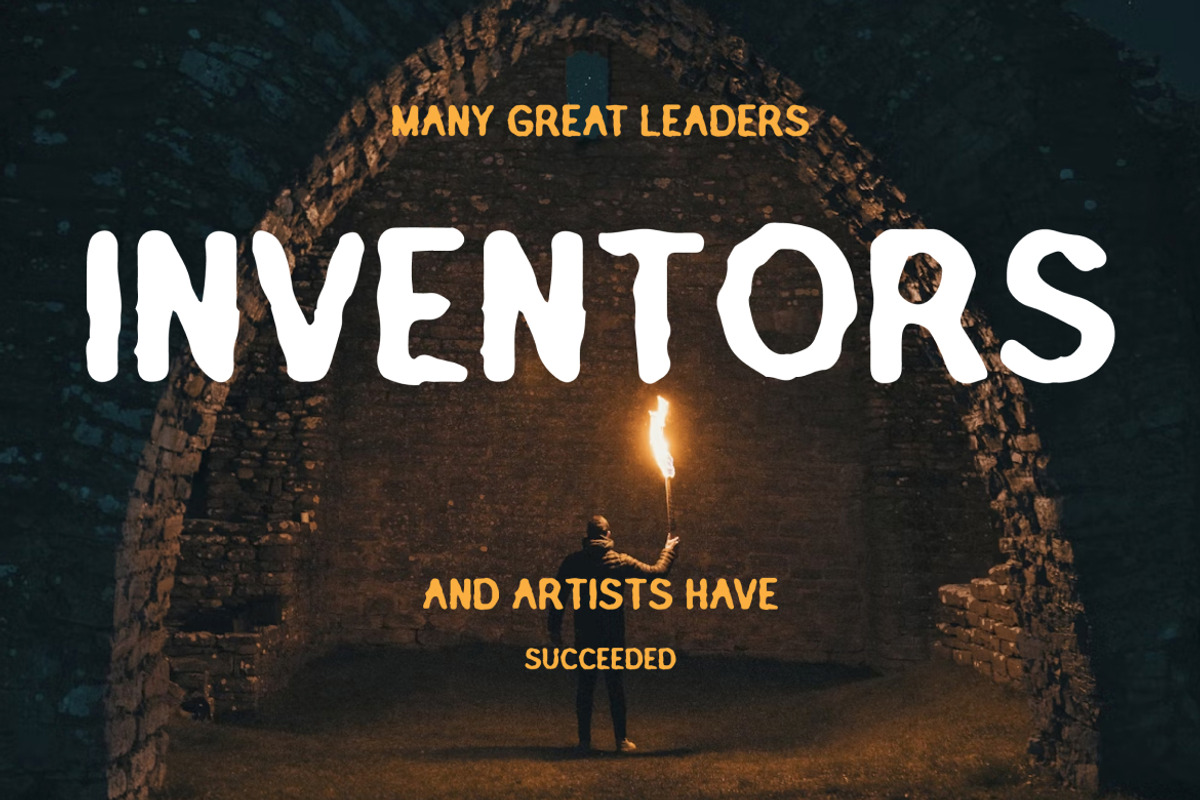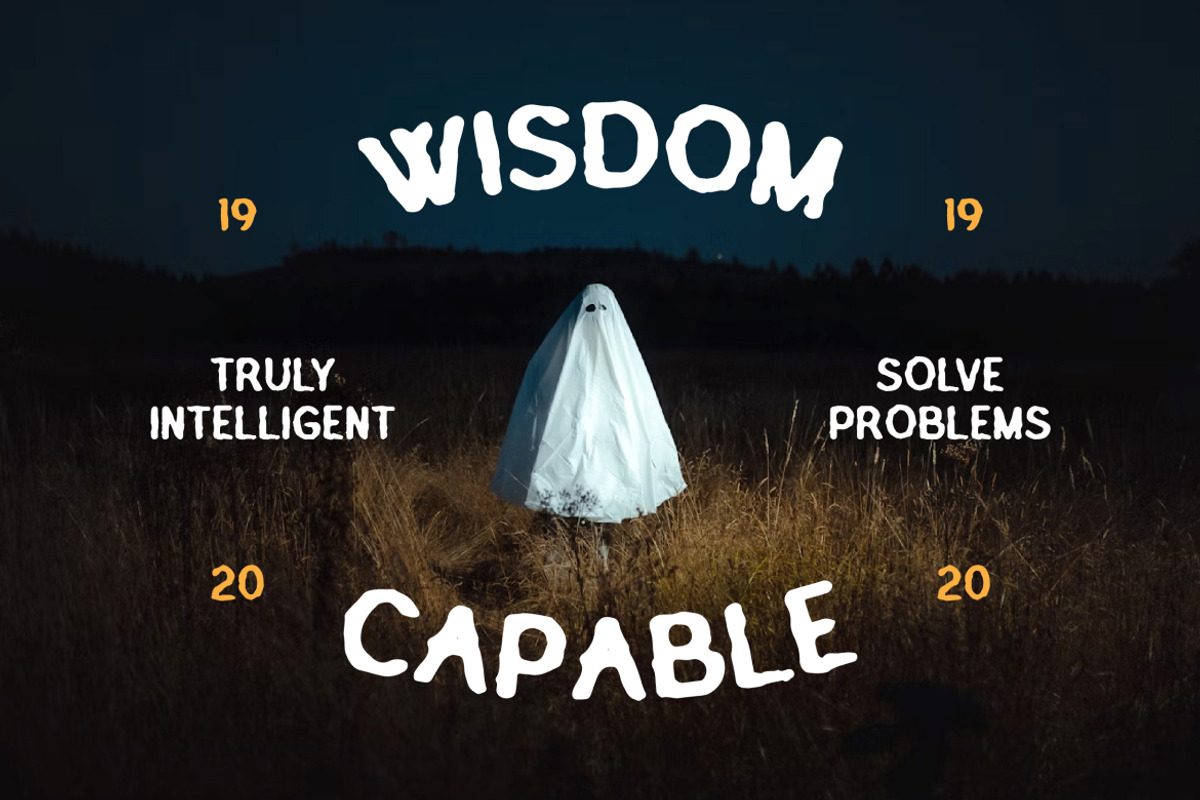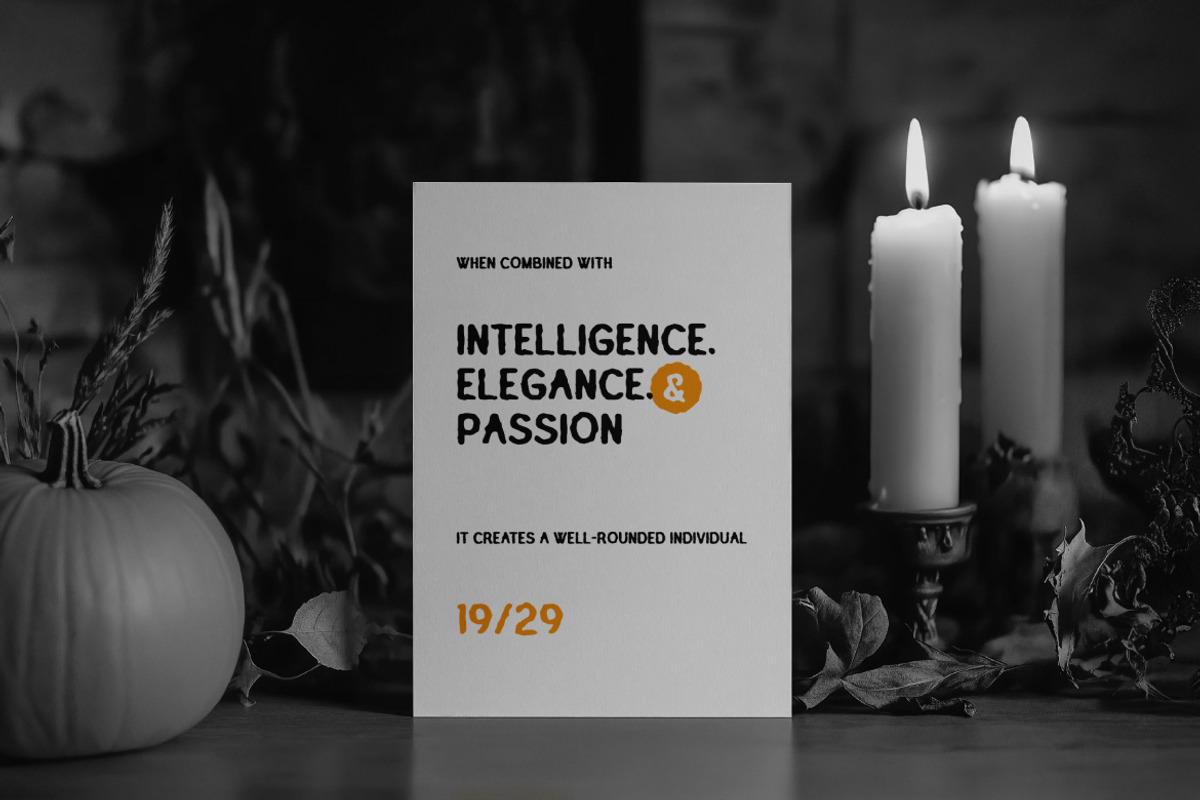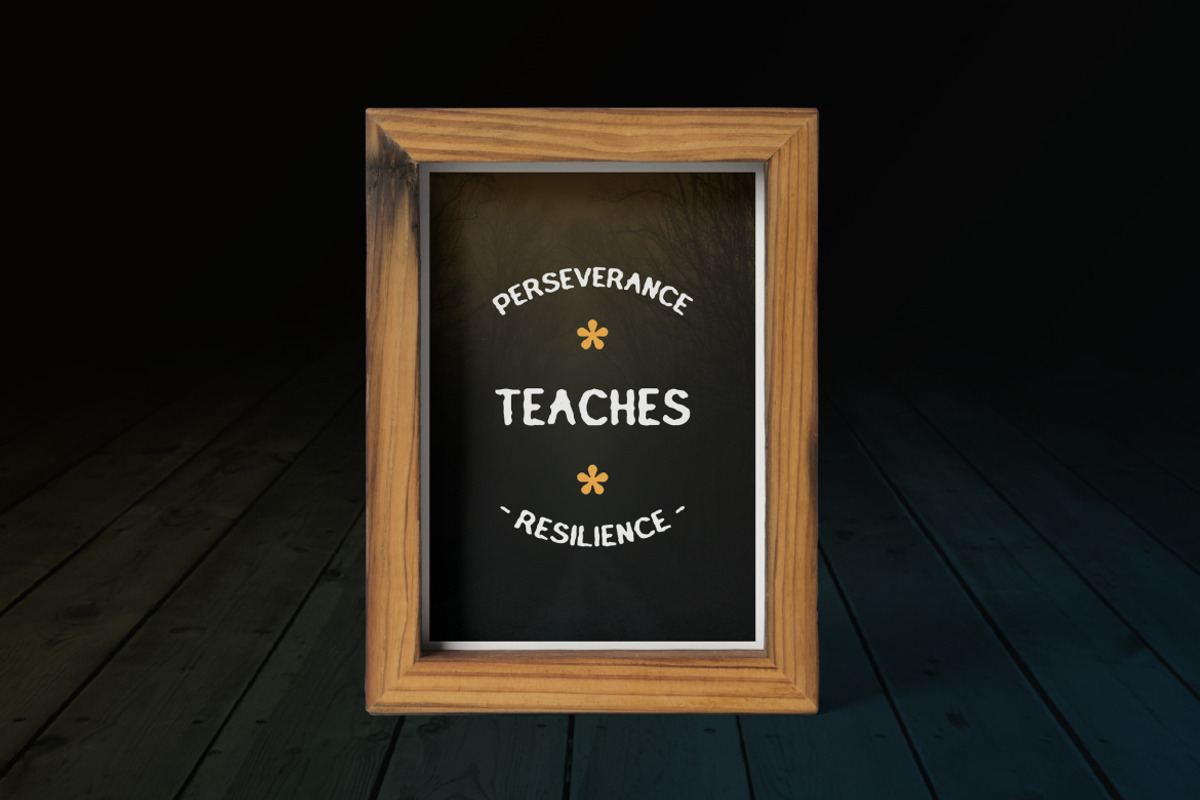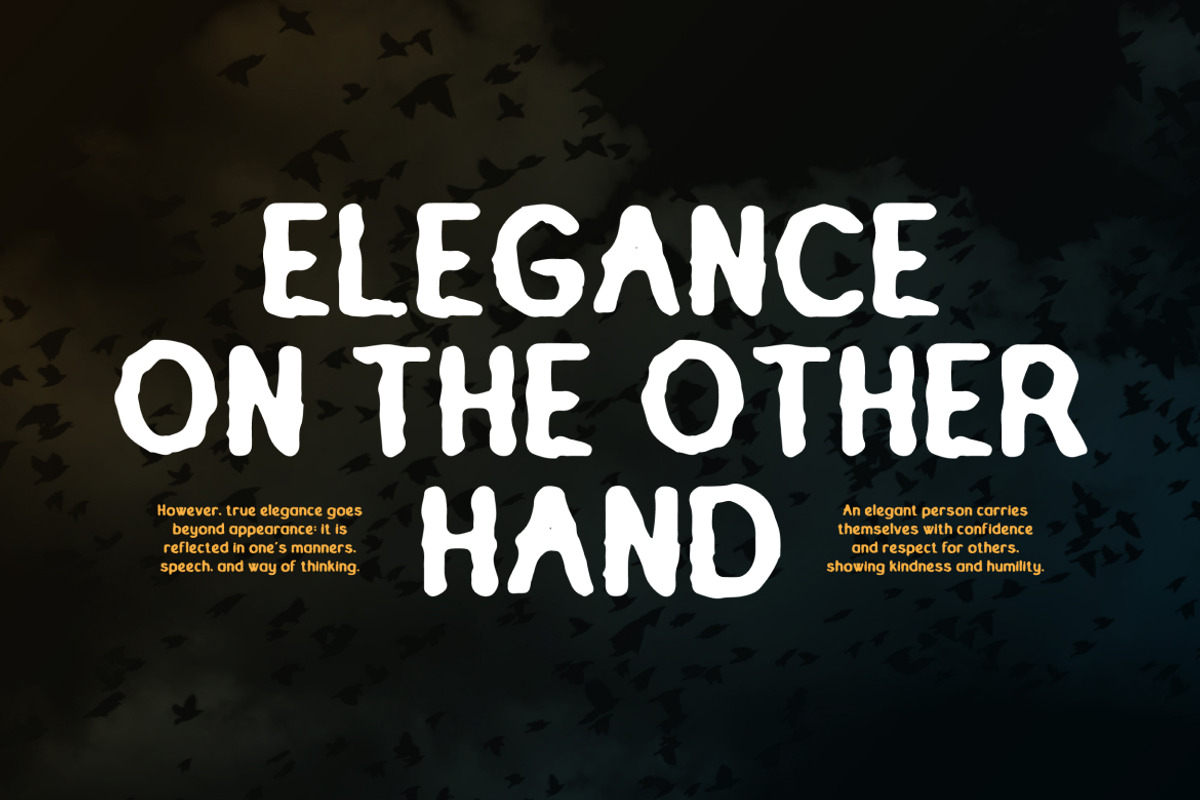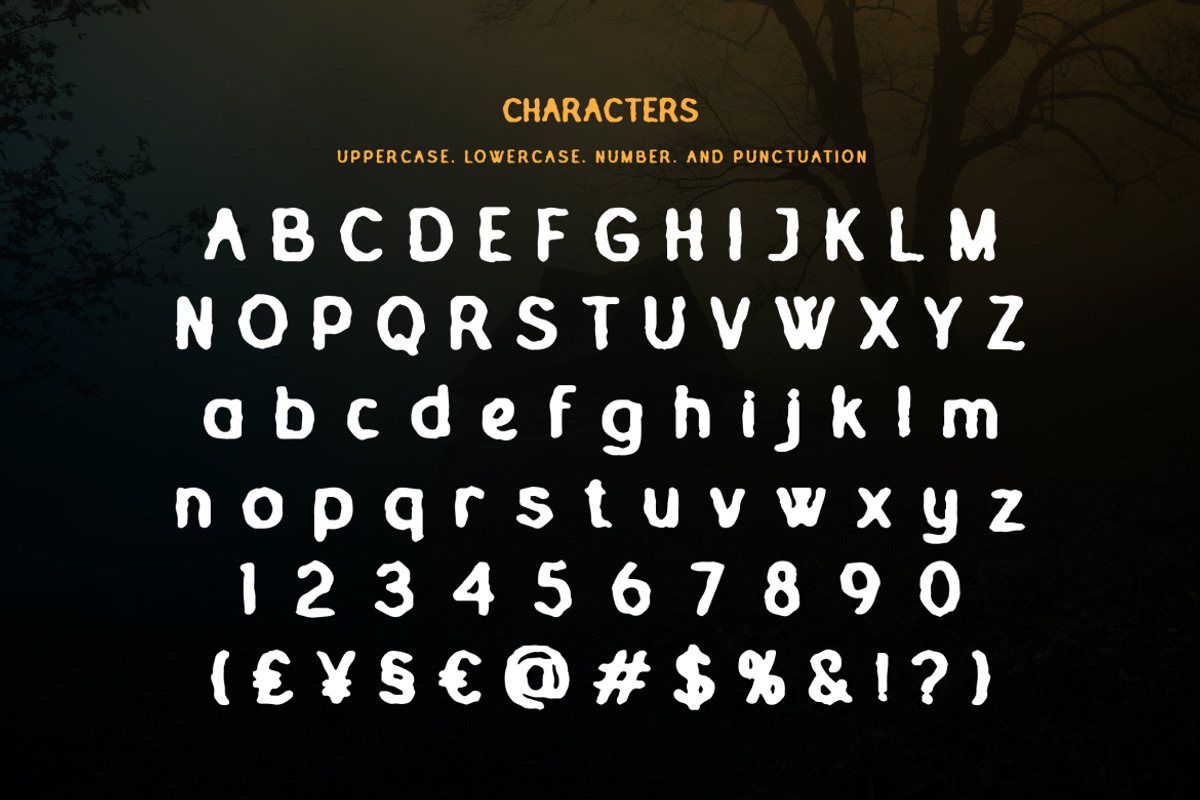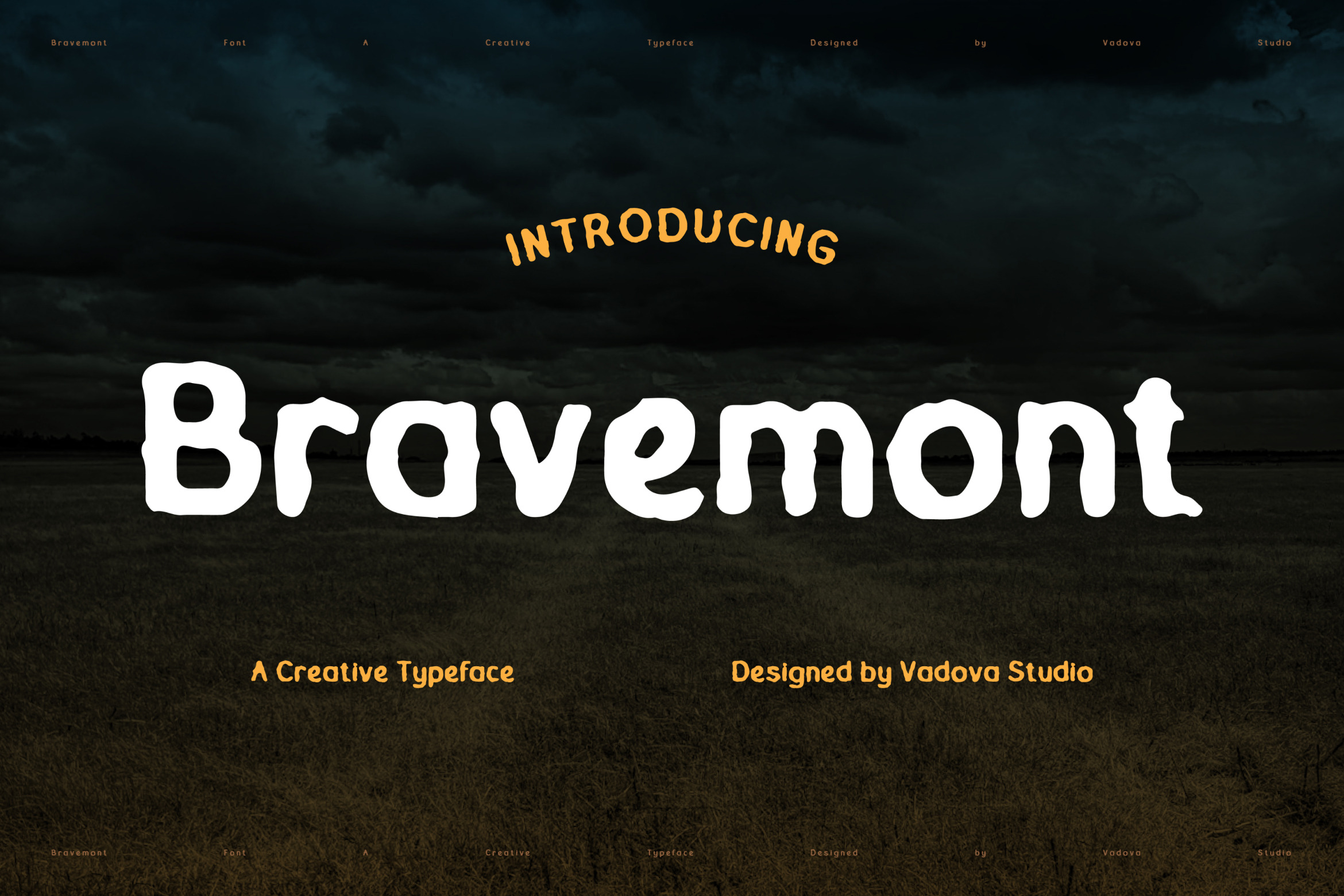
Bravemont Creative Typeface Font
Bravemont is a creative handwritten display font with an organic, irregular, and slightly whimsical character. Featuring hand-drawn letterforms with uneven strokes and playful proportions, this font delivers a natural, expressive, and artistic feel. The typeface includes uppercase and lowercase letters, numbers, and punctuation, making it suitable for a wide range of creative applications.
This font is highly relevant for designers seeking expressive and character-driven typography. Bravemont is ideal for creative branding, posters, album covers, event promotions, storytelling visuals, and designs that require a handcrafted and emotional touch.
- Expressive hand-drawn design with organic letterforms
- Playful imperfections for an authentic handmade feel
- Soft edges and rounded forms for visual comfort
- Balanced stroke weight with natural flow
- Display-focused spacing for strong visual impact
- Creative brand identities that need personality and originality
- Posters, flyers, and headline designs with a bold artistic tone
- Book covers, album artwork, and storytelling visuals
- Halloween, fantasy, or whimsical-themed design projects
- Social media graphics and marketing materials with a handcrafted feel
- Screen-optimized kerning for responsive web design -Supports numerals, punctuation, and extensive symbol set